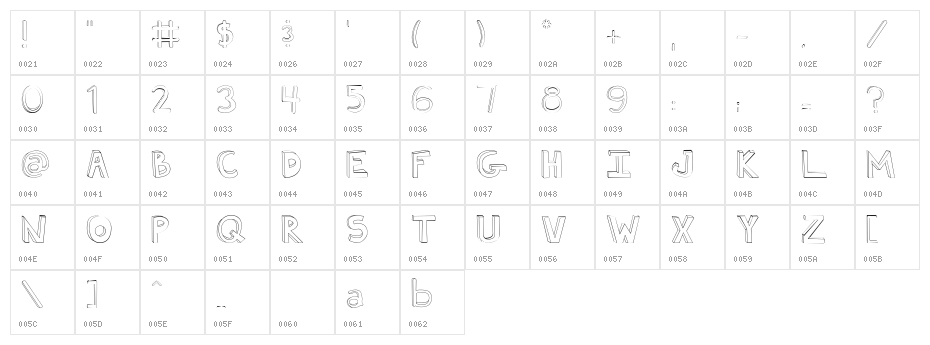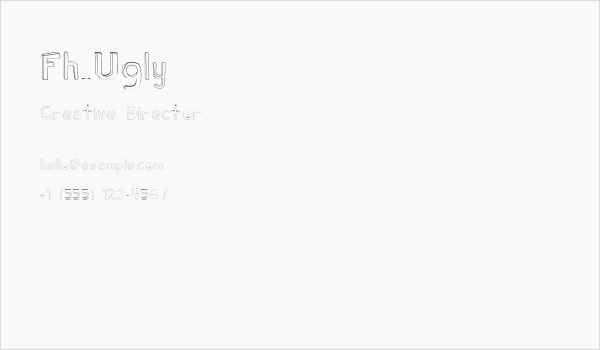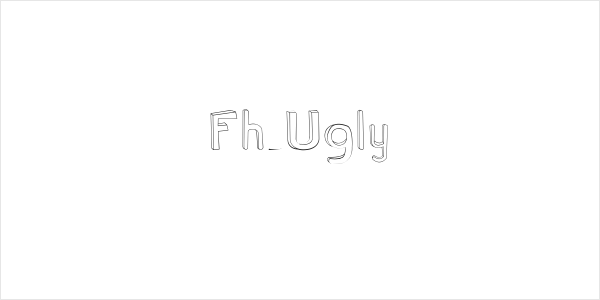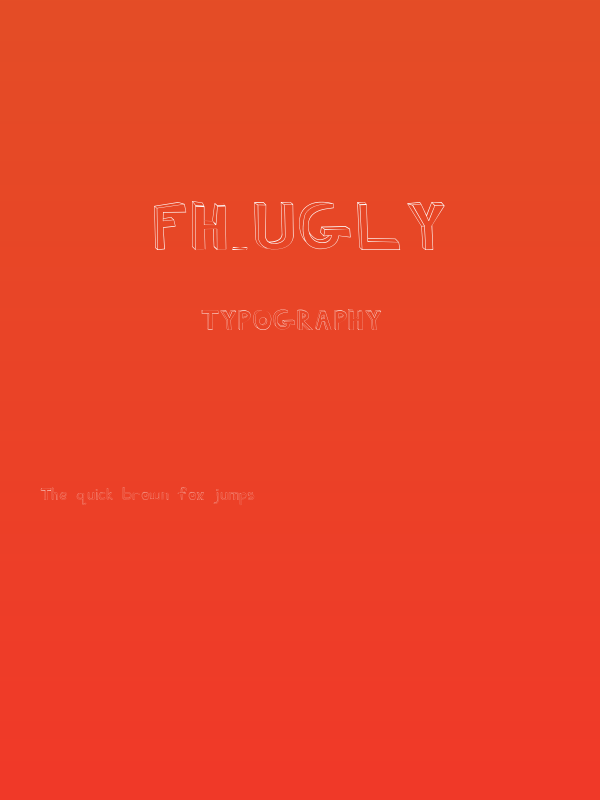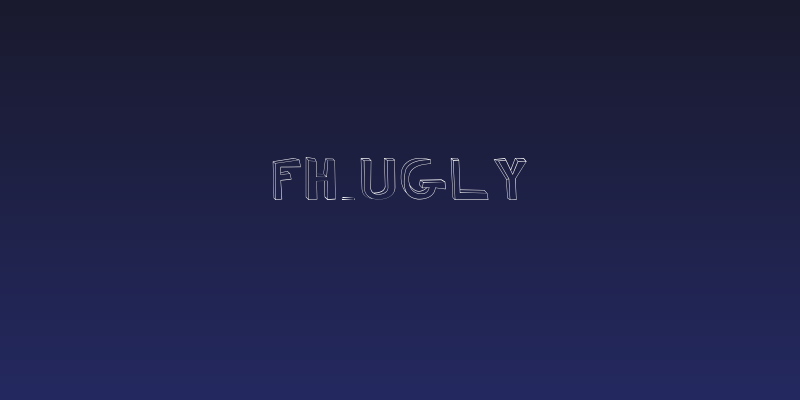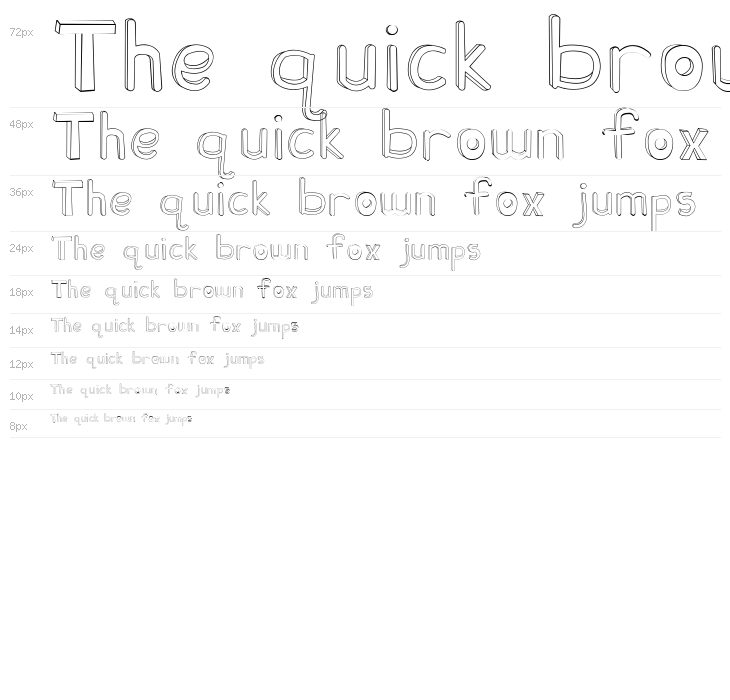
Fh_Ugly Font
Fh_Ugly Description
This font features a playful and quirky design with a hand-drawn aesthetic. The characters are outlined, giving a hollow appearance that adds a unique dimension to the text. The uppercase and lowercase letters maintain a consistent style, with rounded edges and a slightly uneven stroke that enhances the casual, informal feel. Numbers and special characters follow the same design principles, ensuring a cohesive look across all elements. The font's whimsical nature makes it suitable for creative and fun projects.